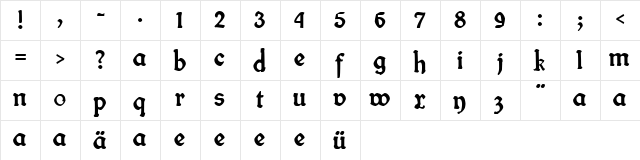
fin fraktur Regular
Design Context for fin fraktur Typeface
fin fraktur channels the dramatic heritage of Fraktur and Gothic scripts, bringing a sense of historical gravitas to any design.
Well-suited to band logos, craft beer branding, tattoo lettering, and heritage-themed identities.
Font Pairing: Pair with a clean neutral sans-serif for body copy to let fin fraktur's character lead without overwhelming the composition.
Pro Tip: Use fin fraktur sparingly at large sizes. Even a single word set in blackletter can define the visual register of an entire design.